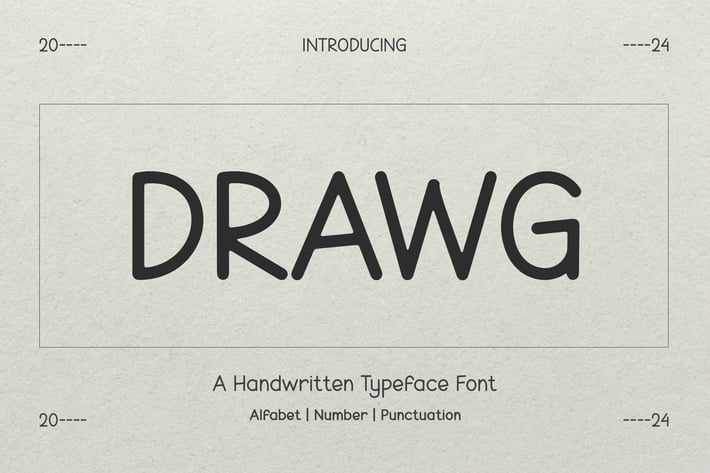
DRAWG - A Handwriting Typeface Font
DRAWG is a unique display typeface perfect for titles, large text, branding, logotypes & graphic design purposes such as posters, pamphlets, and advertisements. This letter font can be a great choice for creating amazing logos, promotional content, and marketing presentations that can bring uniqueness and freshness at its best.
Uppercase and Lowercase letters
Numbering and Punctuations